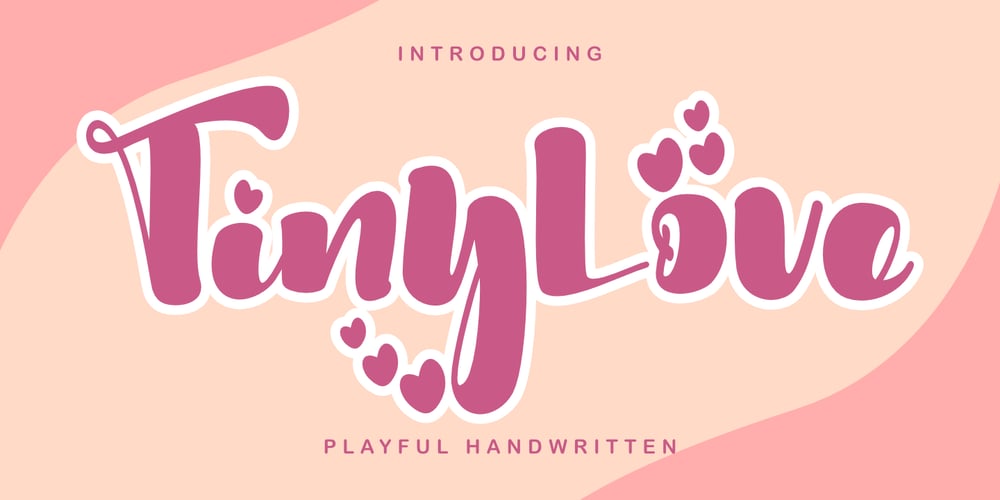
Tiny Love Font Family was designed by Stephanus Prabowo and published by Andrey Font Design. Tiny Love contains 2 styles and family package options. Tiny Love is a chic, playful and fun display font. It will look gorgeous on a variety of design ideas. It will add a joyful and romantic touch to each of your projects! This romantic font is PUA encoded which means you can access all of the glyphs and swashes with ease!